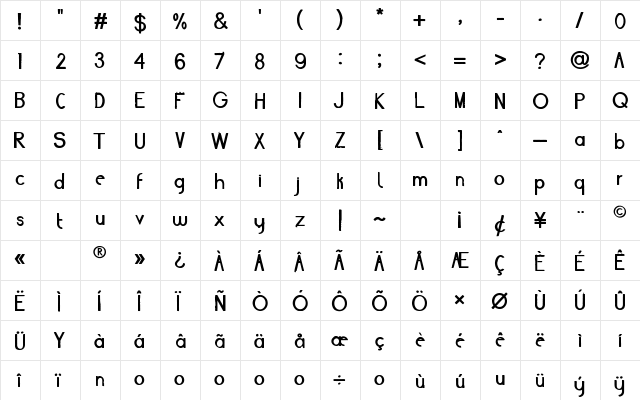
Bullet Journal Fall Regular
Design Context for Bullet Journal Fall Typeface
Bullet Journal Fall takes a measured approach to typography — its balanced proportions and neutral character make it a reliable workhorse for both digital and print work.
Pro Tip: Use Bullet Journal Fall in both headline and body roles to test its range before committing to a single application.